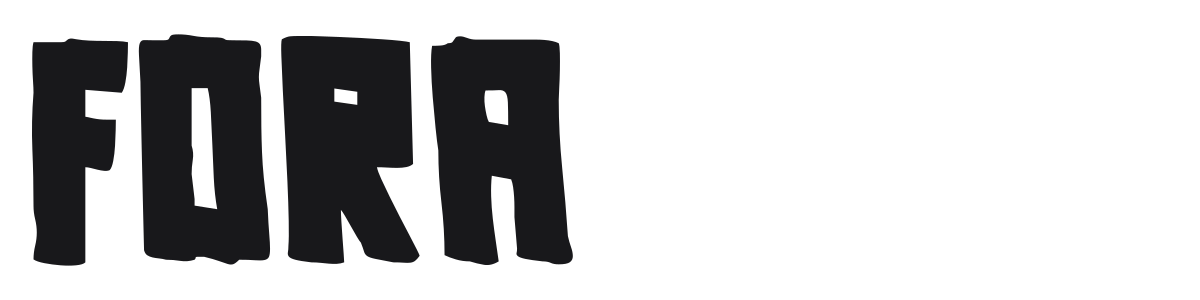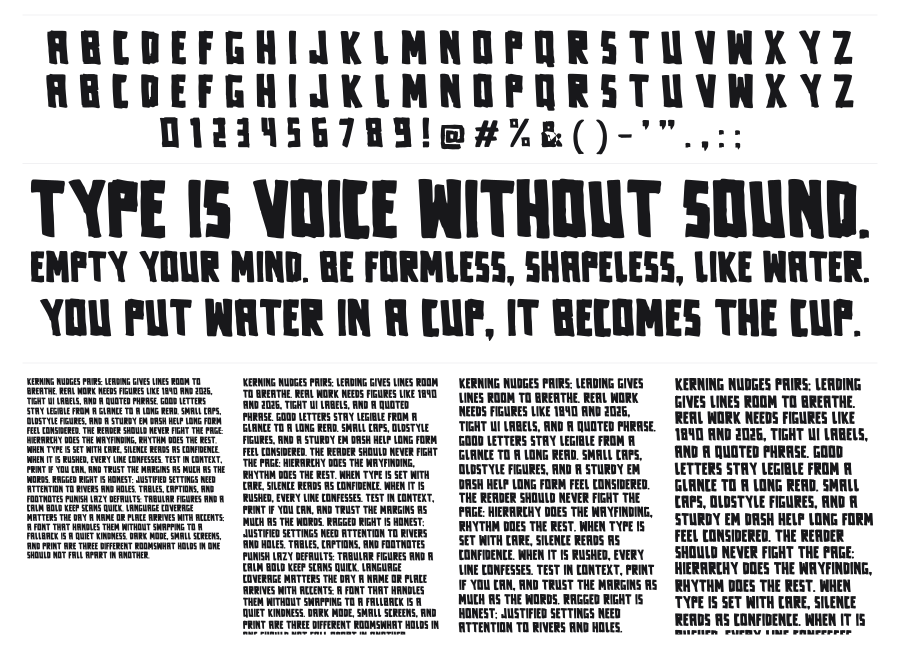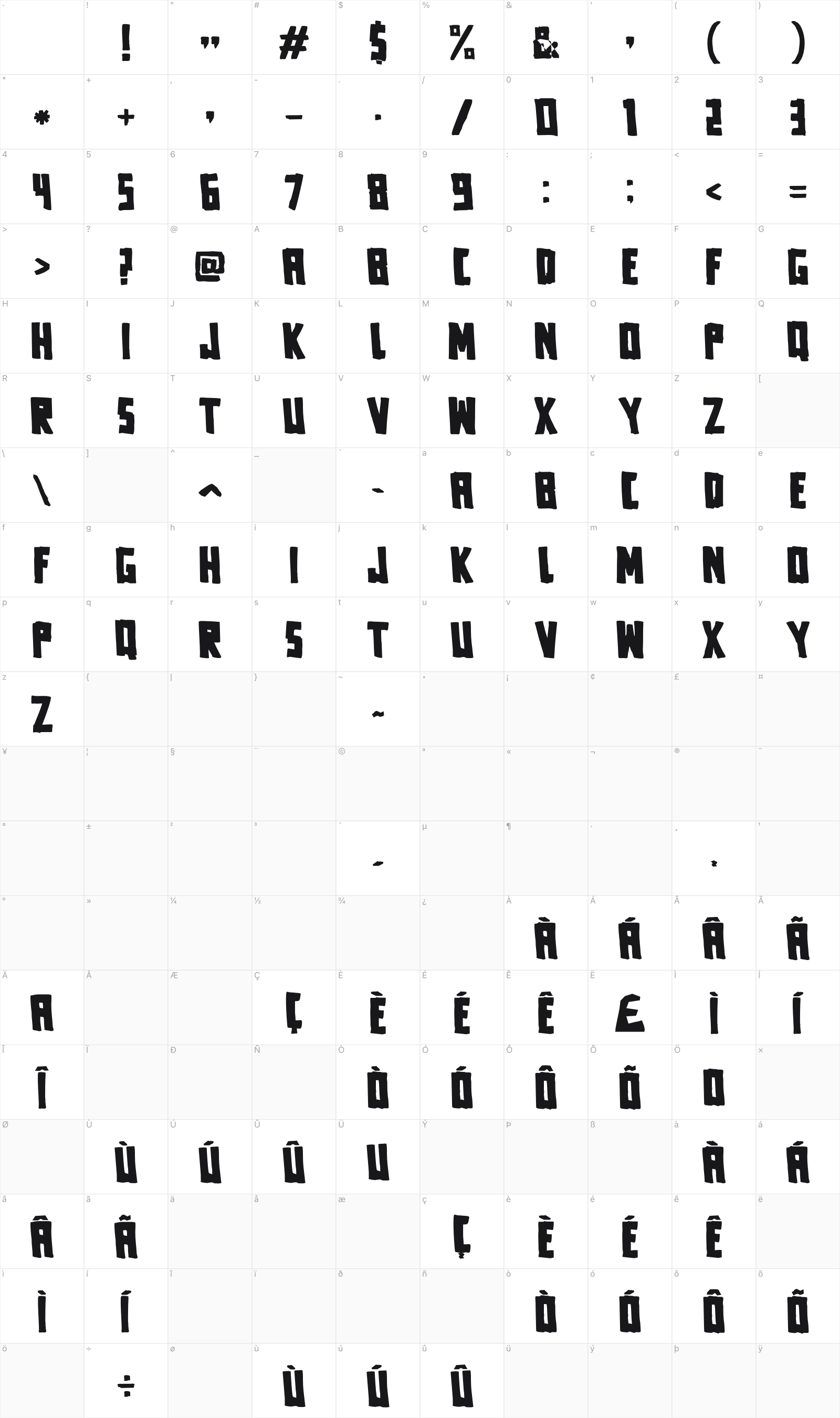
Fora
Fora is a heavy distressed display font with bold, condensed characters that look hand-carved or roughly stamped. Each letter carries irregular edges and subtle baseline shifts that push the design firmly into punk, horror, and street territory. It brings raw energy to posters, album covers, and titles that need to feel unpolished on purpose.